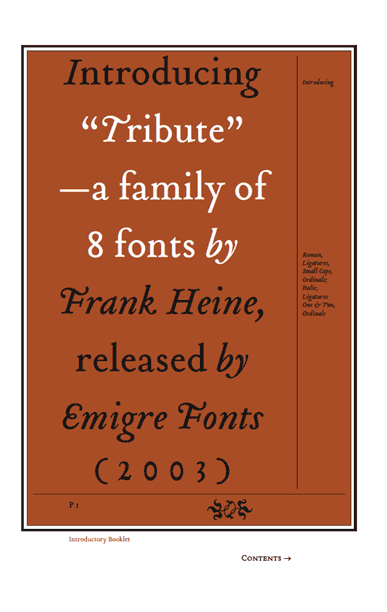
Emigre is happy to announce the release of Tribute, a new typeface by German type designer Frank Heine. This is Heine's fourth release with Emigre Fonts. Remedy, released in 1991, was a major commercial success. It's curlicue, free-style, comic appearance, provided a perfect counter to Emigre's then primarily modular type designs. Dalliance, a classic roman and script combo based on handwriting from a photocopy of a 1799 battle map, was released in 2002 and became an instant classic.
With Tribute, Heine followed a path similar to that of Dalliance by using a single printed source (a photo copy of a reprint of a type specimen printed around 1565) as its model. The specimen in question was set in typefaces cut in 1544 and 1557 by the French punchcutter François Guyot. Not nearly as influential as his elders, such as Garamond or Griffo, Guyot's unusual treatment of certain characters and overall idiosyncratic approach appealed to Heine's aesthetic sensibilities. Also, to design a font based on a Renaissance Antiqua had been a long held desire for Heine; "I am particularly attracted to its archaic feel, especially with settings in smaller design sizes. It is rougher with less filigree than the types of the following centuries thus exhibiting much cruder craftsmanship of the early printing processes." By using a third generation copy as a model, which did not reveal much detail, allowed Heine enough room for individual decisions resulting in a decidedly contemporary interpretation while maintaining a link to the past.
Fellow type designer and sign painter John Downer describes the result as follows: "It is evident that Frank Heine's 'Tribute' possesses an element of 'type caricature' in its drawing, but this fact doesn't relegate it to that one category. Heine has really gone beyond parody, well into an area of personal exploration. He has challenged many traditional assumptions that we 'connoisseurs' of hand-cut type have maintained in our attitude toward the historical accuracy sought and loved and expected in 'revivals.' The result is a unique combination of caricature, homage, alchemy, and fanciful reinterpretation. Tribute, I think, recalls Guyot's native French-learned style, primarily as a point of departure for an original - albeit implausible - work of historical fiction, with merits and faults of its own."
Design History
By Frank Heine
This text was first published in 2003 in the type specimen booklet for Tribute.
The Tribute family of fonts is based on types cut by the Frenchman, François Guyot. The single example that I used as the model for Tribute was a reprint of a type specimen probably printed around 1565 in the Netherlands. (An original can be seen at the Folger Shakespeare Library, Washington, DC.)
François Guyot was a punchcutter born in Paris, France, who moved to Antwerp in 1539 where he worked in the type founding trade. Until his death in 1570 he was a regular supplier of type to Christophe Plantin, Antwerp's renowned printer. Together with his competitor, Ameet Tavernier, Guyot produced types that were highly influential in the appearance of printed work in the Low Countries in the period from 1545-1570, and they were in great demand throughout much of Western Europe.
I've always had a desire to design a typeface based on a Renaissance Antiqua. (1) There are two reasons. First, the Renaissance Antiqua can be considered the prototype for most of today's typefaces. It already provided a formal maturity at the end of the 15th century, with an exceptional level of differentiation between single characters, offering good legibility.
Second, I am particularly attracted to its archaic feel, especially with settings in smaller design sizes (Nonpareil through Bourgeois). It is rougher with less filigree than the types of the following centuries, thus exhibiting much of the cruder craftsmanship of the early printing processes.
To a certain extent the early Renaissance Antiqua congenially reflects the contradictions of its time; the vanishing Middle Ages versus Humanism, and the urge for cognizance or Inquisition versus Reformation.
François Guyot's types were not as influential as those of his elders, Griffo or Garamond. There were many inconsistencies not usually seen in this class of typefaces. Some of the characters have an unrefined or unusual feel, such as the N, the asymmetrical M, the abrupt cut of the tail of the y, or the treatments of the accents and brackets.
Furthermore, the available size on the original print from which I worked did not reveal much detail. For instance, no clear examples were apparent regarding the logic of serifs or stroke endings. In this respect the source left enough room for individual decisions. Most of these detail decisions - such as how far the character stays within the historical attributes, or how far it edges away from them - were relatively easy to arrive at, since the basic forms of a Renaissance Antiqua are quite familiar to me. (2) As I was drawing each letter directly in Fontographer 3.5, I made these decisions quite intuitively.
Due to my preference for smaller design sizes, Tribute was equipped with a robust stroke width and decreased contrast between thin and bold strokes. This ensures the needed heavy text "color" and equability that is necessary for good legibility at small sizes.
Despite my fondness for typefaces originating from about 1480 to 1580, there was the nagging question about the sense and purpose of adapting a historical model for today's digital techniques. There are already many, partially well designed, revivals available. But many of these solutions (the digital version of Stempel Garamond comes to mind immediately) appeared to me as over-interpreted in the details. They were mostly too thin and sterile looking, erasing any traces of its origins. With the design of Tribute it was my intention to maintain, visually, this link to the past.
The way that typefaces are continually revived and placed into new contexts has always fascinated me. In contrast to the more inflexible art forms such as architecture, sculpture or painting, the historical typeface continues to be an active and vivid medium for contemporary experiments and typographic solutions. Historical models can easily be updated and adapted to current production techniques and find many useful applications in today's media. This speaks to the triumph of early Humanist fonts and their attainment of legibility that outlasted centuries of typeface development, and still functions today.
From top to bottom: Scan of Guyot's 1544 Double Pica Roman (scaled 50%); detail of the original model (scaled 170%); interpretation of serifs (H, l, k) and stroke endings (c, l, k).
1. The Renaissance Antiqua is based upon a misunderstanding. Early Italian Humanists rediscovering the Greek and Roman Antique interpreted the Carolingian Minuscule (which came 700 years later) as Roman handwriting and imitated its style. The Humanist handwriting became the source for the first (Venetian) Renaissance Antiqua cut in Italy by Sweynheim and Pannartz (in Subiaco near Rome, 1463). This typeface still shows some characteristics of Gothic types. But only a few years later, Nicholas Jenson created his elaborated types in Venice in 1470, which became the model for many successive punchcutters and typeface designers until today.
Another interesting aspect of the Renaissance Antiqua is that it is the first typeface consisting of two alphabets: capital and lowercase letters. While the lowercase letters were modeled after the Humanist handwriting, the capitals were taken from Roman inscriptions such as on the Trajan Column in Rome.
2. The German Industry Norm (DIN) differentiates between Venetian and French Renaissance Antiqua. Within the United States the terms French Aldine or Aldine Roman may sound more familiar. The typical characteristics of a French Renaissance Antiqua/French Aldine are shown in the Tribute letters below:
o and round shapes: slightly tilted to the left; i: convoluted, quite heavy serifs with concave transitions to the stem (brackets); k: triangular upper serif; e: small counter, horizontal crossbar, relatively high; a: small, narrow counter; f: ascender swinging far to the right, drop-shaped; overall character: decreased contrast between stems and hairlines.
Call It What It Is by John Downer